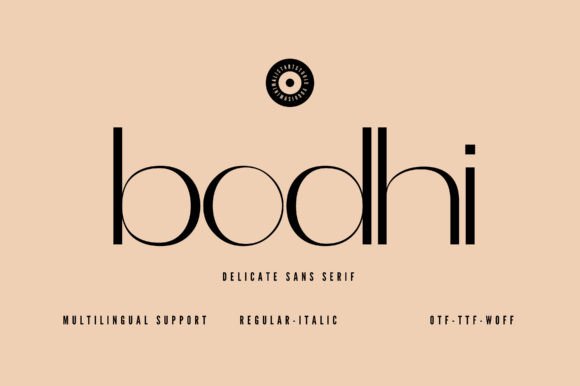
Introducing Bodhi: The Epitome of Sophistication in Typography
In the world of typography, a font can make all the difference in creating a lasting impression on your audience. Introducing Bodhi, a chic and elegant sans serif font designed to elevate your designs to new heights. With its minimalist aesthetic, Bodhi is the perfect choice for modern designs that require a touch of timeless elegance.
A Font with a Wide Range of Characters
Bodhi offers an extensive range of characters, with over 604 glyphs at your disposal. This impressive glyph count includes uppercase and lowercase letters, numerals, symbols, and punctuation marks, ensuring that you’ll have everything you need to create stunning designs that stand out from the crowd.
Whether you’re working on a branding project, creating a website, or designing packaging, Bodhi’s wide range of characters will help you create a cohesive and visually appealing design. The font’s versatility is unmatched, making it a must-have for designers who want to create a memorable visual experience for their audience.
Multi-Lingual Support for Global Reach
Bodhi is more than just a beautiful font; it also offers multi-lingual support. Whether you’re creating designs in English, French, German, or any other language, Bodhi has got you covered. With its wide range of language support, Bodhi is perfect for businesses and designers who want to reach a global audience.
In today’s digital age, having a font that supports multiple languages is crucial for businesses that operate globally. Bodhi’s multi-lingual support ensures that you can create designs that resonate with your audience, regardless of their language or location.
A Versatile Font for Various Design Projects
Bodhi is a versatile font that is suitable for a variety of design projects, from branding and advertising to website design and packaging. Its clean and modern look will elevate any project to new heights, making it the go-to choice for designers who want to create a memorable visual experience for their audience.
Whether you’re creating a logo, brochure, or website, Bodhi’s elegant and sophisticated design will help you create a cohesive and visually appealing design. The font’s versatility is unmatched, making it a must-have for designers who want to create stunning designs that stand out from the crowd.
The Benefits of Using Bodhi
- Extensive glyph count: With over 604 glyphs, Bodhi offers an extensive range of characters to help you create stunning designs.
- Multi-lingual support: Bodhi supports multiple languages, making it perfect for businesses and designers who want to reach a global audience.
- Versatility: Bodhi is suitable for a variety of design projects, from branding and advertising to website design and packaging.
- Elegant and sophisticated design: Bodhi’s minimalist aesthetic makes it perfect for modern designs that require a touch of timeless elegance.
- Pair Bodhi with other fonts: Bodhi pairs well with other fonts, making it easy to create a cohesive and visually appealing design.
- Experiment with different font sizes: Bodhi’s elegant and sophisticated design looks great in a variety of font sizes, from large headings to small body text.
- Use Bodhi for branding and advertising: Bodhi’s clean and modern look makes it perfect for branding and advertising projects, such as logos, brochures, and billboards.
In conclusion, Bodhi is a must-have font for anyone who values sophistication, elegance, and simplicity in their designs. With its extensive glyph count and multi-lingual support, this sans serif font is sure to impress and make a lasting impression.